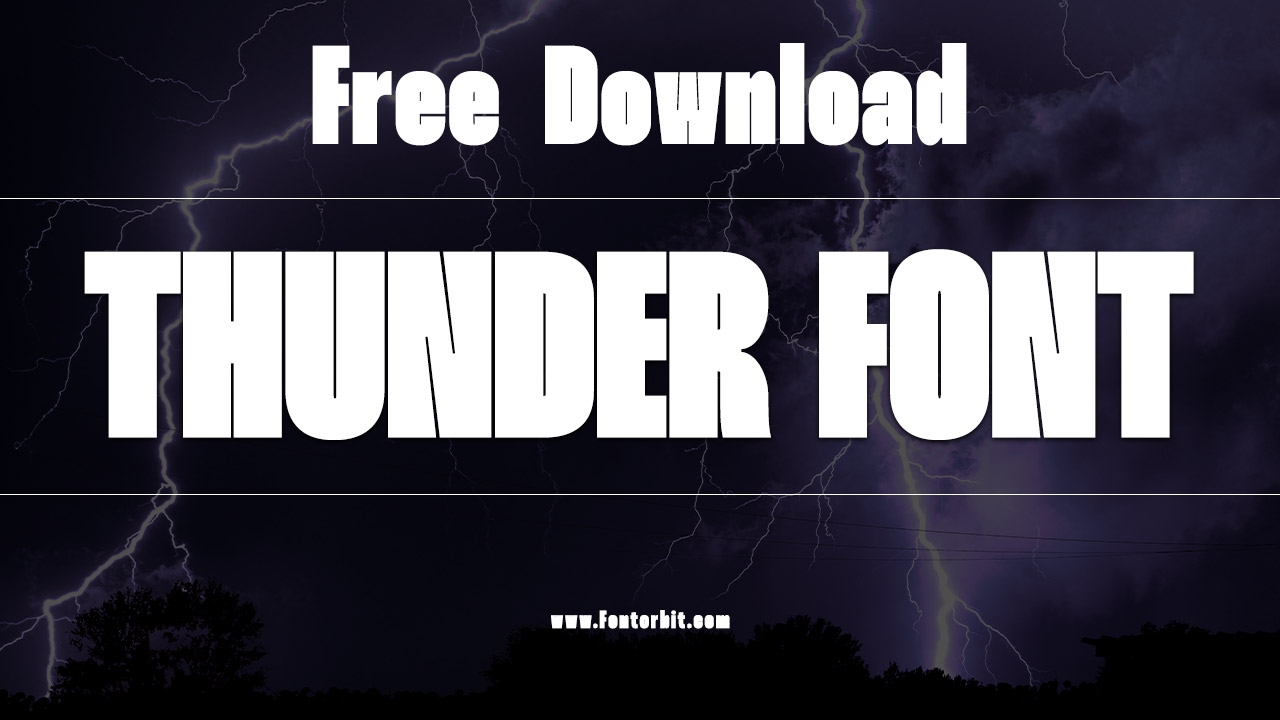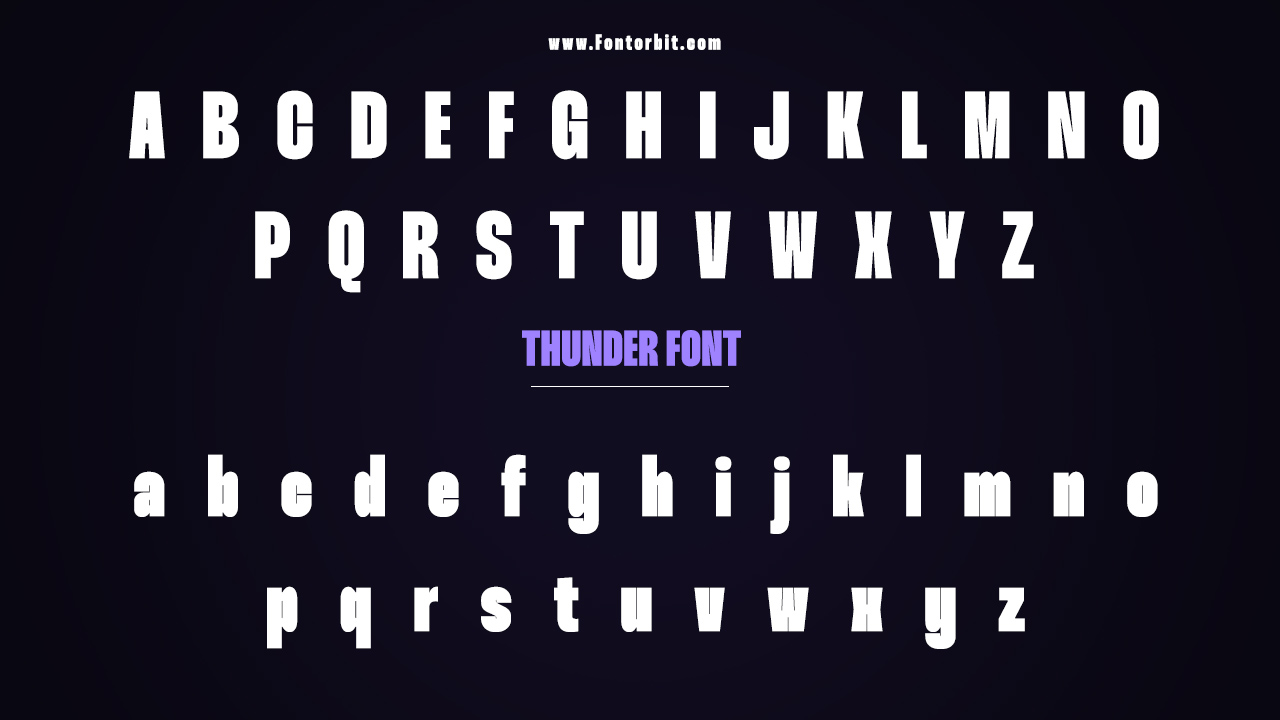
Introducing Thunder Sans Serif, a condensed sans serif font family designed by Rajesh Rajput and released on August 19, 2021. The Thunder type family boasts 18 unique weights, including italic versions, featuring strong characters, sharp edges, and proportional contrast.
Its design makes it highly versatile and ideal for branding, posters, magazines, websites, and mobile apps. This font family is available for free for both personal and commercial use.
Thunder Sans Serif is a comprehensive font family with 18 weights and italic versions. Its condensed, sharp design creates a bold impact, perfect for modern typography. The family includes:
Notable Uses Of Thunder Sans Serif
Thunder’s bold, condensed design is ideal for:
- Logo creation
- Branding materials
- Poster design
- Magazine headlines
- Website headlines and menus
- Mobile app interfaces
- Contemporary user interfaces
The Thunder Font family is perfect for projects where impactful, clean typography is required. This includes:
- Branding and logos for businesses or startups
- Poster designs where bold visuals are needed
- Contemporary web design with modern interface elements
- Magazine covers and titles for a sleek, professional look
Thunder Sans Serif is an excellent choice for designers looking for a bold, condensed font family that can be applied to various projects. Its versatility, combined with its strong letterforms, ensures that it will make an impactful addition to any design.
2.What Makes Thunder Unique?
Its sharp edges, condensed design, and bold character give it a modern yet vintage appeal.
3.Is Thunder Suitable For Logo Design?
Absolutely! Its bold and clear letterforms make it perfect for logo creation.
5.Is Thunder Available In Italic Styles?
Yes, Thunder offers italic versions for each weight.
6.Can Thunder Be Used For Mobile App Design?
Yes, its strong character makes it perfect for contemporary mobile interfaces.
8.Is Thunder Suitable For Large-Scale Posters?
Definitely! Its bold design ensures readability at large sizes.